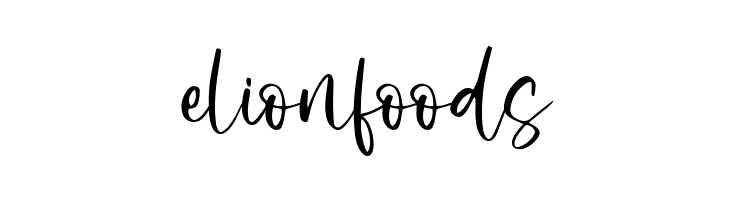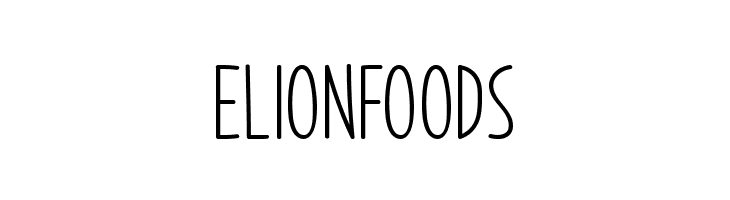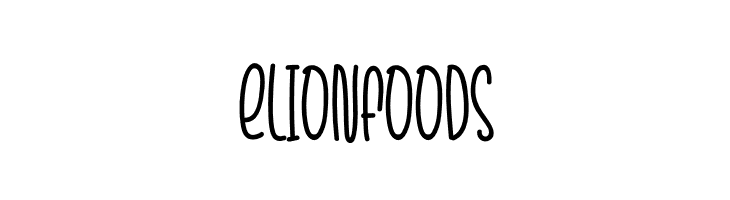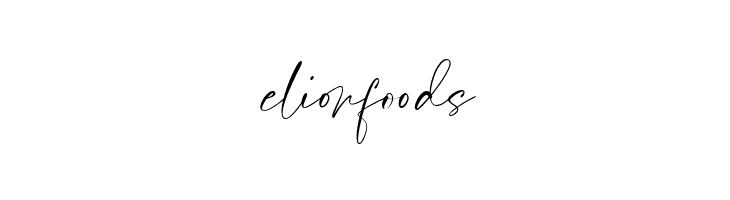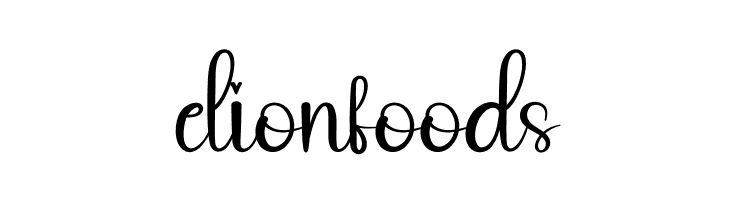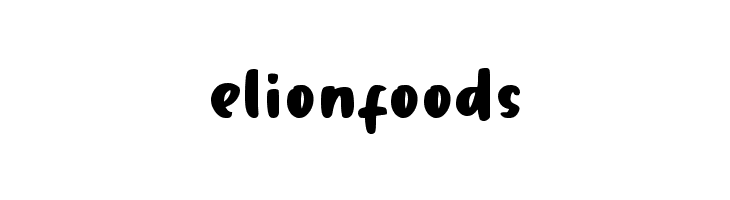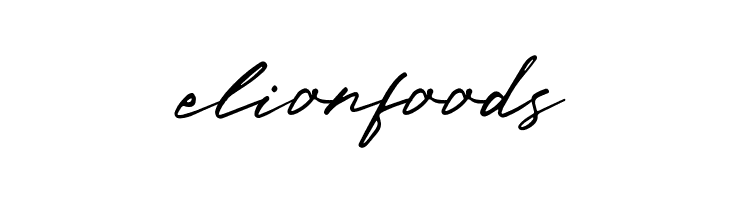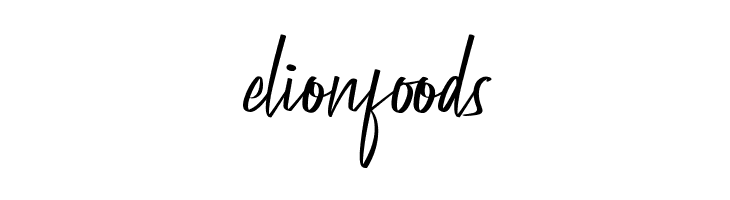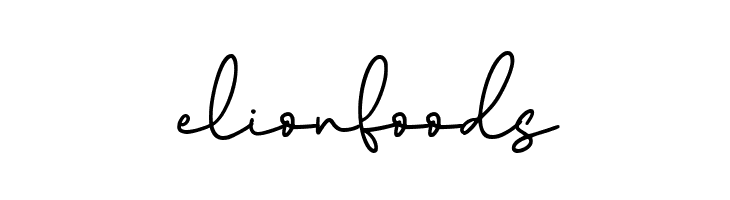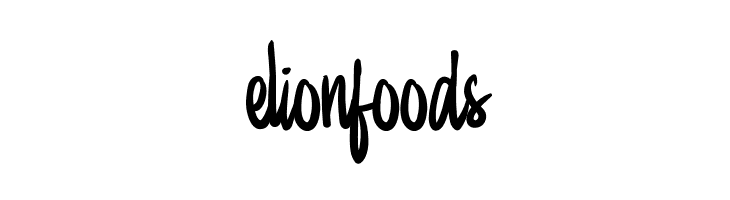
A modern, cursive font with a natural handwritten style.
An elegant, flowing script font with a refined, handwritten style.
A lively and elegant script font with a modern handwritten style.
A bold, handwritten font with a playful and friendly style.
A playful, handwritten font with tall, narrow characters and a distressed look.
A playful, hand-drawn font with tall, narrow letters and a casual style.
Decorative script font with a playful style.
Expressive handwritten script with tall, narrow, and fluid letterforms.
A playful, handwritten font with tall, narrow letters and rounded edges.
A playful, casual handwritten font with irregular, whimsical letterforms.
A tall, narrow, and modern font with consistent stroke width and close character spacing.
Handwritten script with a signature-like, elegant flow.
A graceful, flowing script font with elegant, interconnected letters.
A flowing, cursive script font with elegant, interconnected characters.
A graceful and sophisticated script font with fluid, cursive strokes.
A whimsical, elegant cursive font with intricate loops and flourishes.
Playful, bold handwritten font.
A playful, hand-drawn font with a whimsical and friendly style.
A playful, hand-drawn font with tall, narrow letters and decorative elements.
An elegant script font with fluid, interconnected strokes and a calligraphic style.